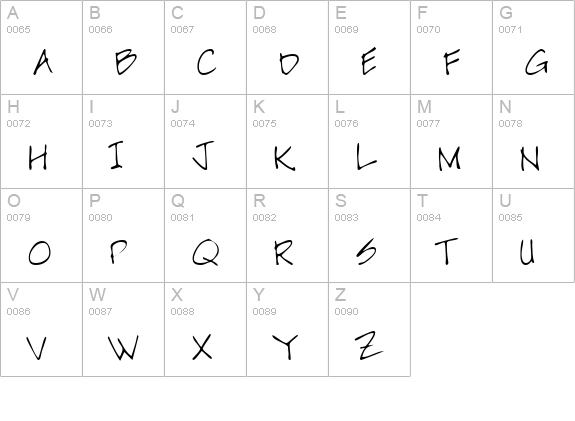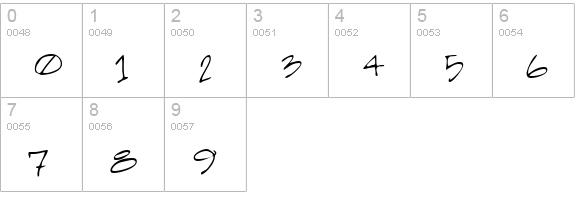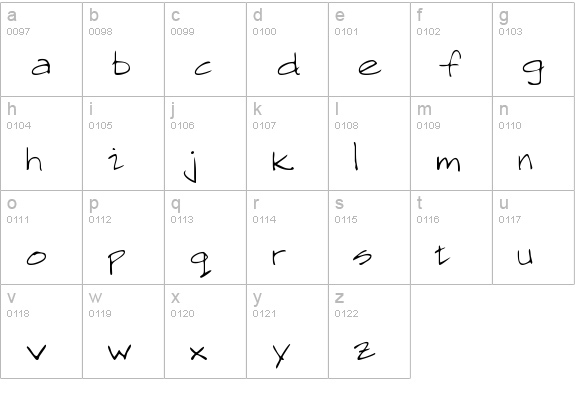
SawyersHand Regular Font Details
SawyersHand Regular is the standard, neutral variant in the SawyersHand typeface family \xE2\x80\x94 well suited to general body text, paragraphs, and standard typographic work.
Introducing SawyersHand Regular, a font that combines the elegance of handwritten script with a touch of contemporary flair. This versatile typeface is perfect for adding a personal and unique touch to any creative project. With its smooth curves and stylish strokes, SawyersHand Regular effortlessly captures the essence of modern calligraphy. Whether you're designing wedding invitations, branding materials, or social media graphics, this font is sure to make a lasting impression. What sets SawyersHand Regular apart is not only its exquisite design but also the fact that it is available for free. Yes, you read that right - this stunning font can be downloaded freely at FontsMarket.com. This means that you can enjoy the beauty and versatility of SawyersHand Regular without any cost, making it an ideal choice for designers on a budget or anyone looking to add a touch of elegance to their projects without breaking the bank. SawyersHand Regular is compatible with various software and platforms, making it easy to use and incorporate into your designs. Its legibility and attention to detail ensure that your text will be easily readable, regardless of the size or format. Download SawyersHand Regular today and unlock a world of creative possibilities. Whether you're a professional designer or a hobbyist, this font is a must-have addition to your typography collection. With its free availability at FontsMarket.com, there's no reason not to indulge in the beauty and charm of SawyersHand Regular. Get ready to elevate your designs and captivate your audience with this stunning typeface.